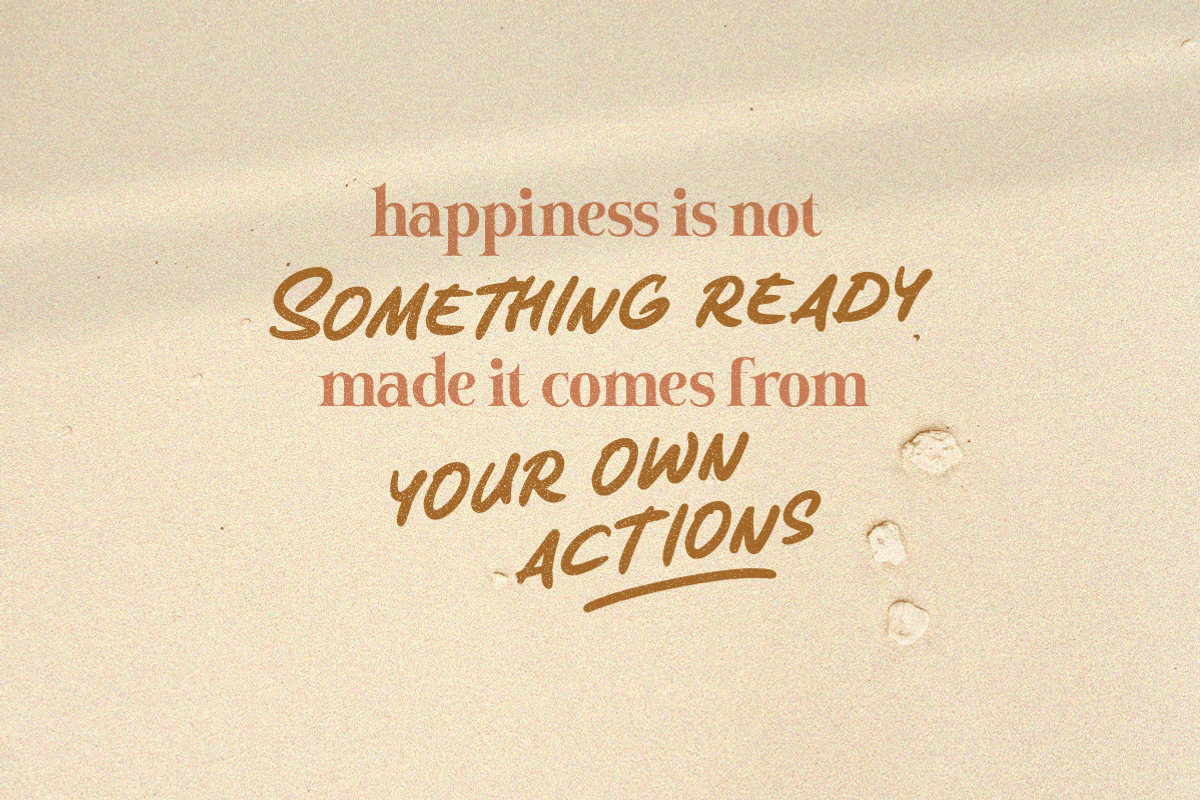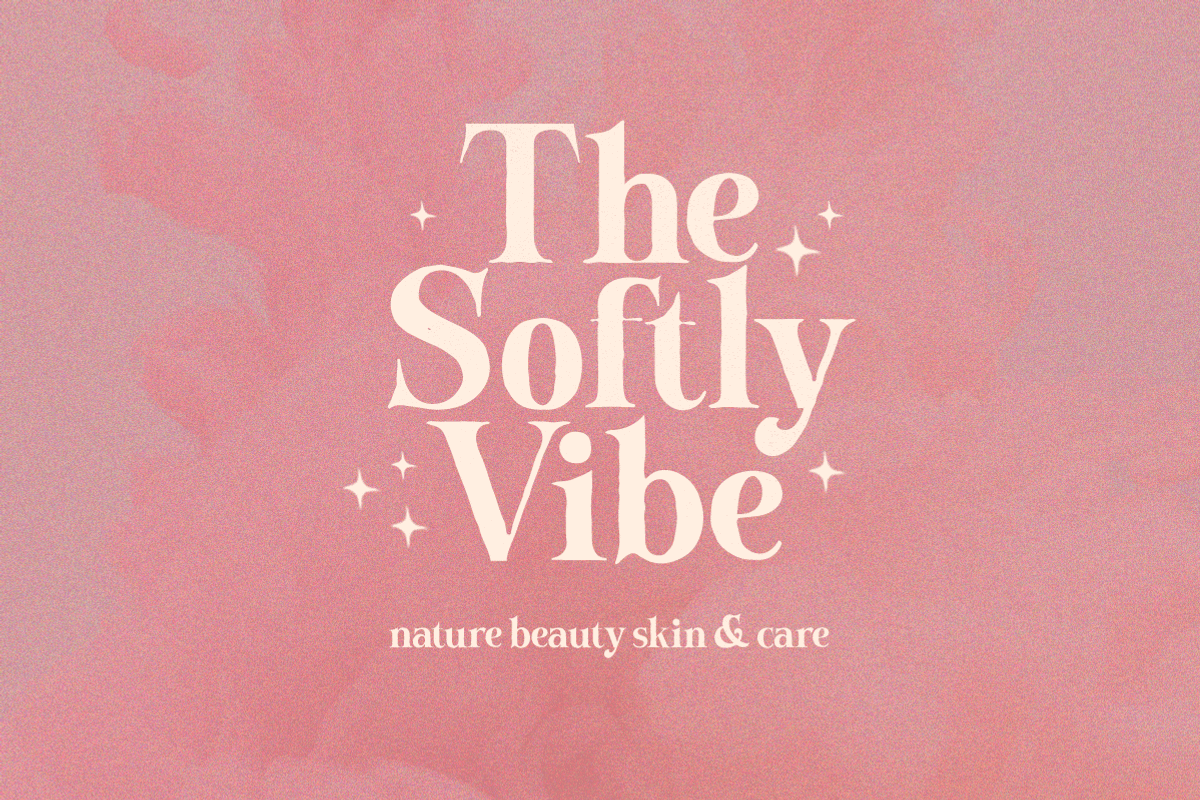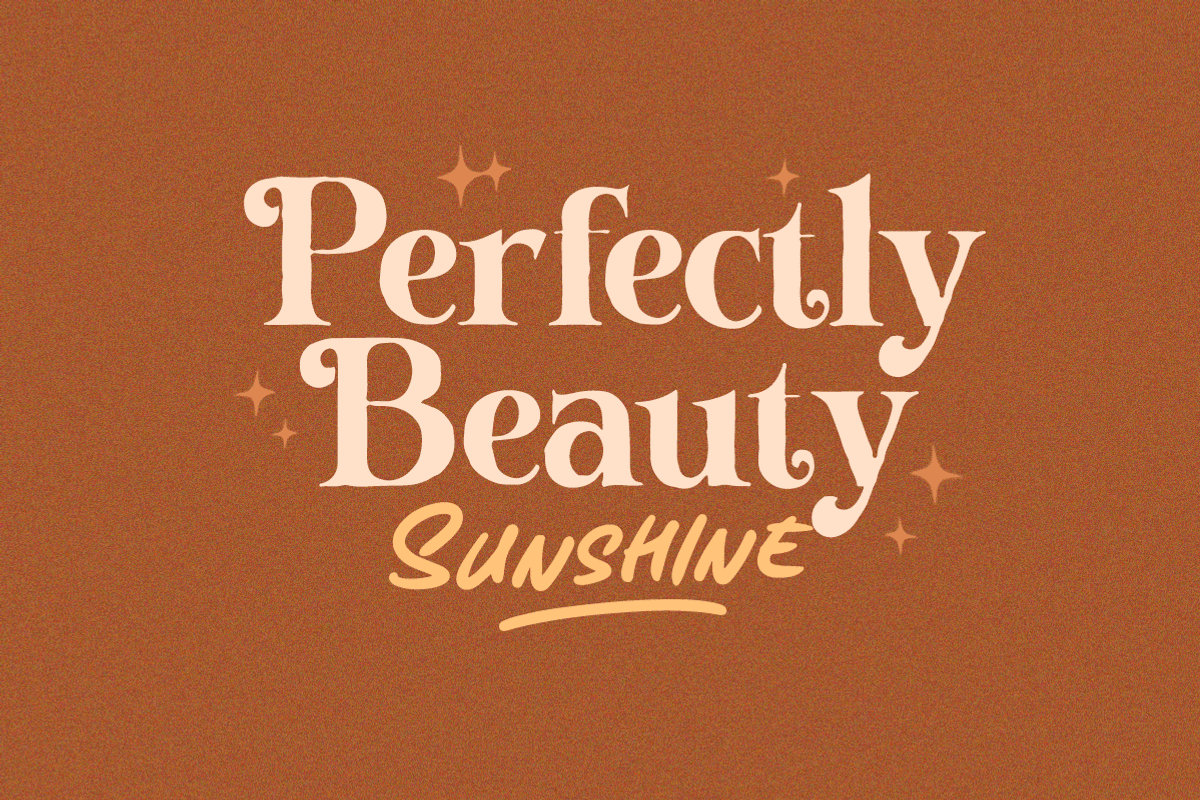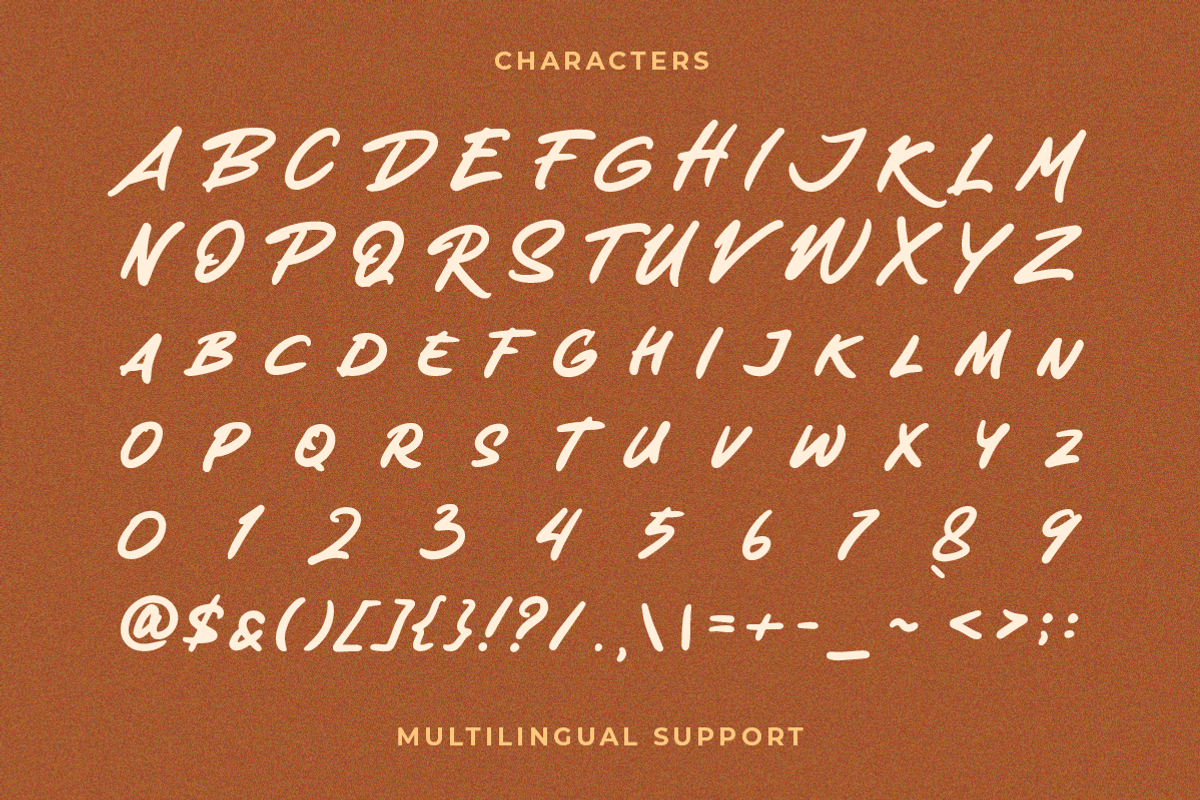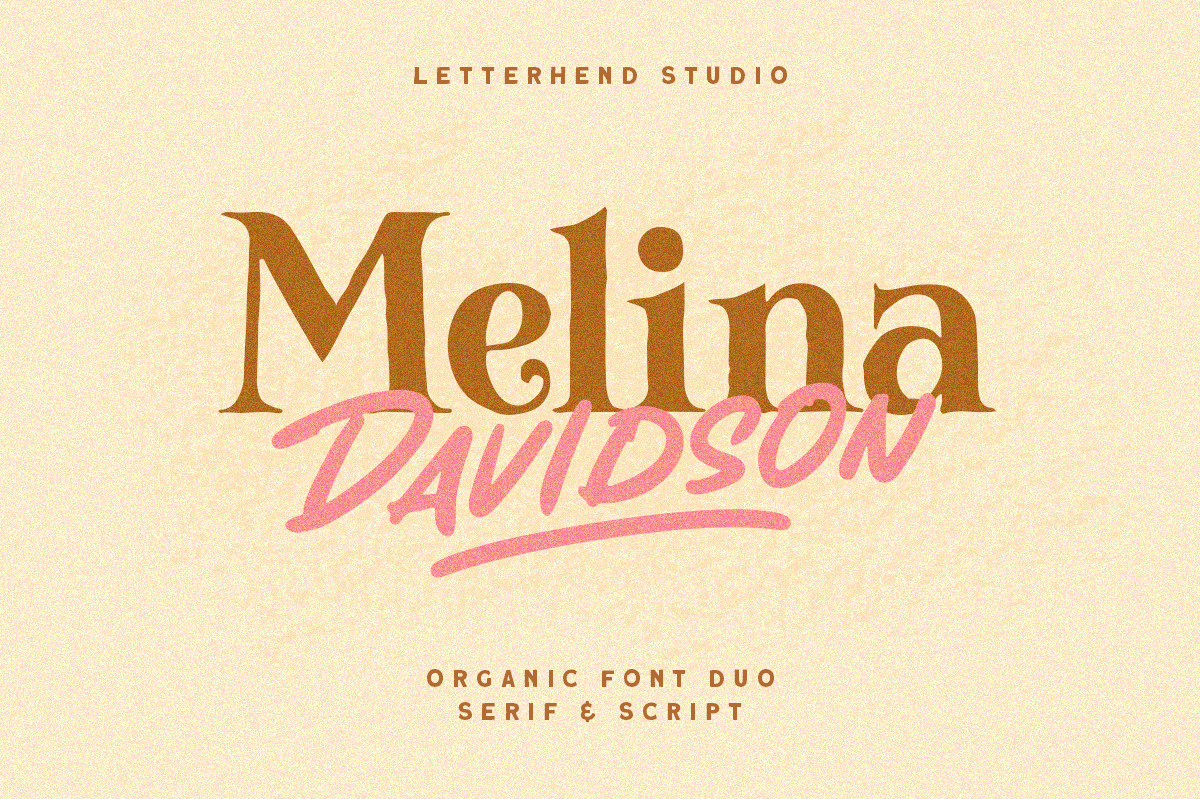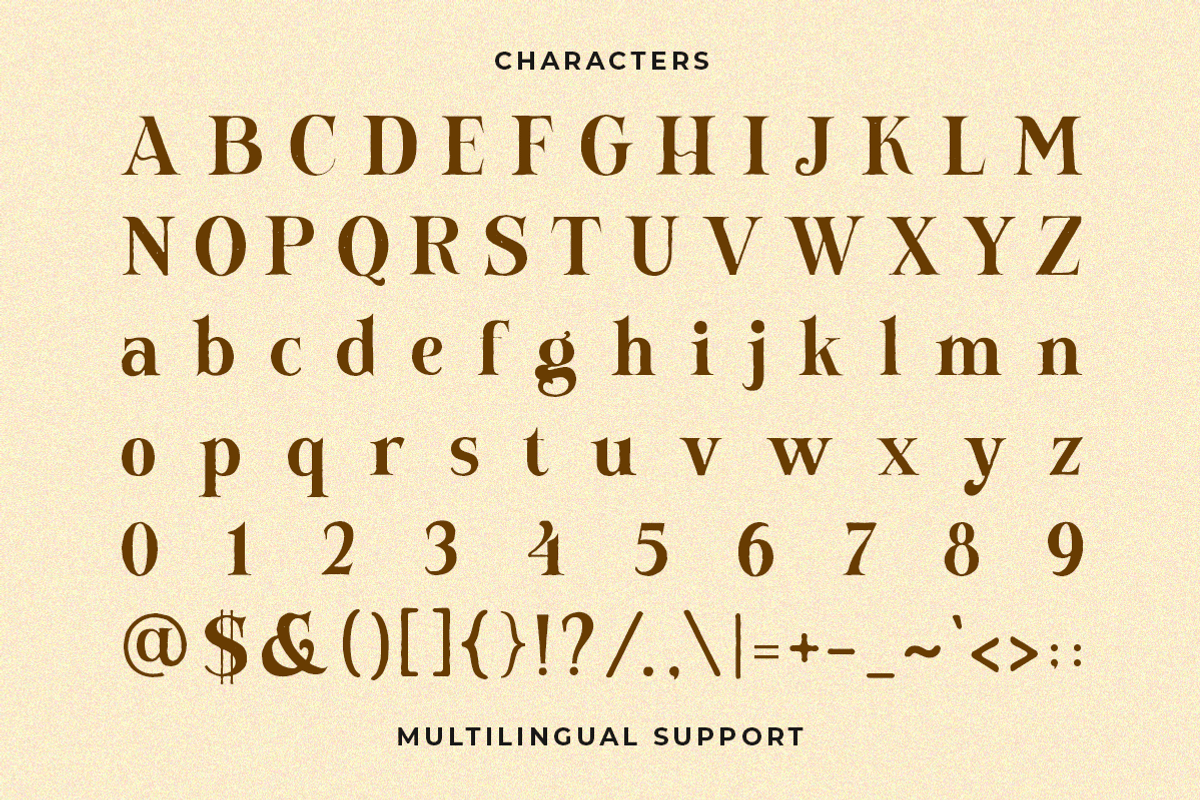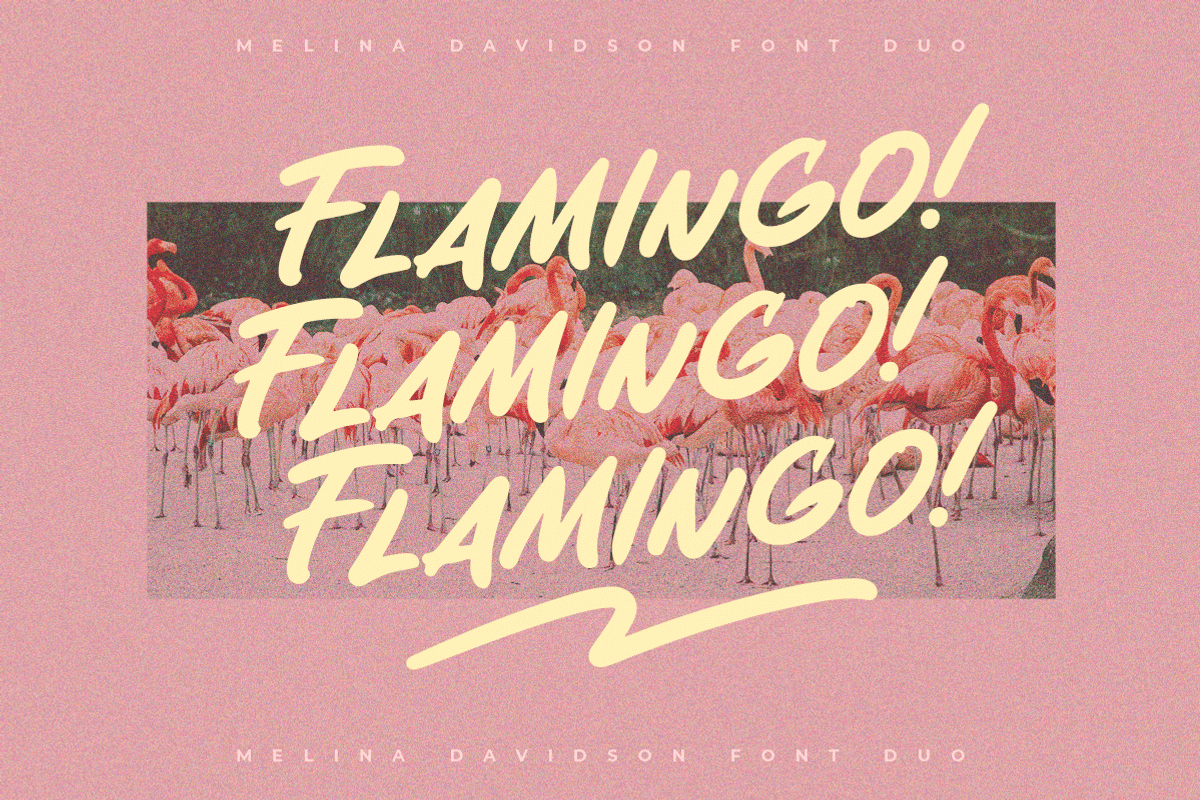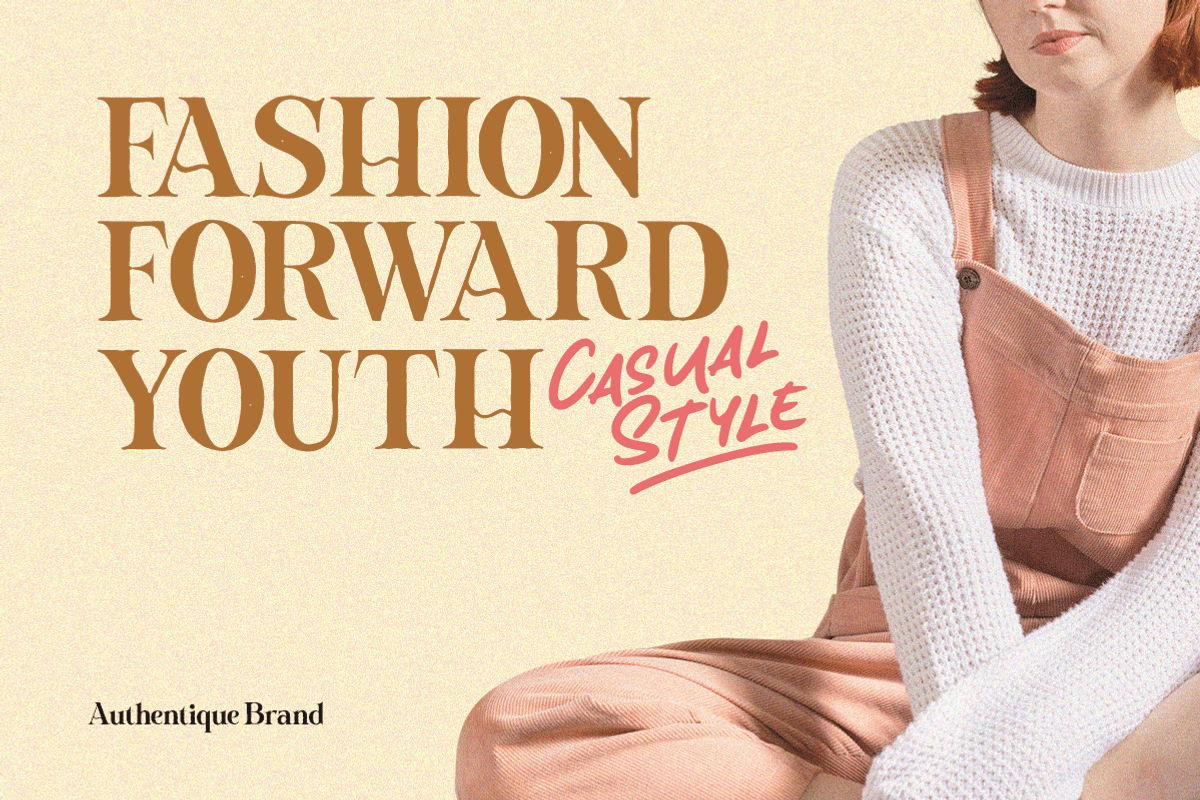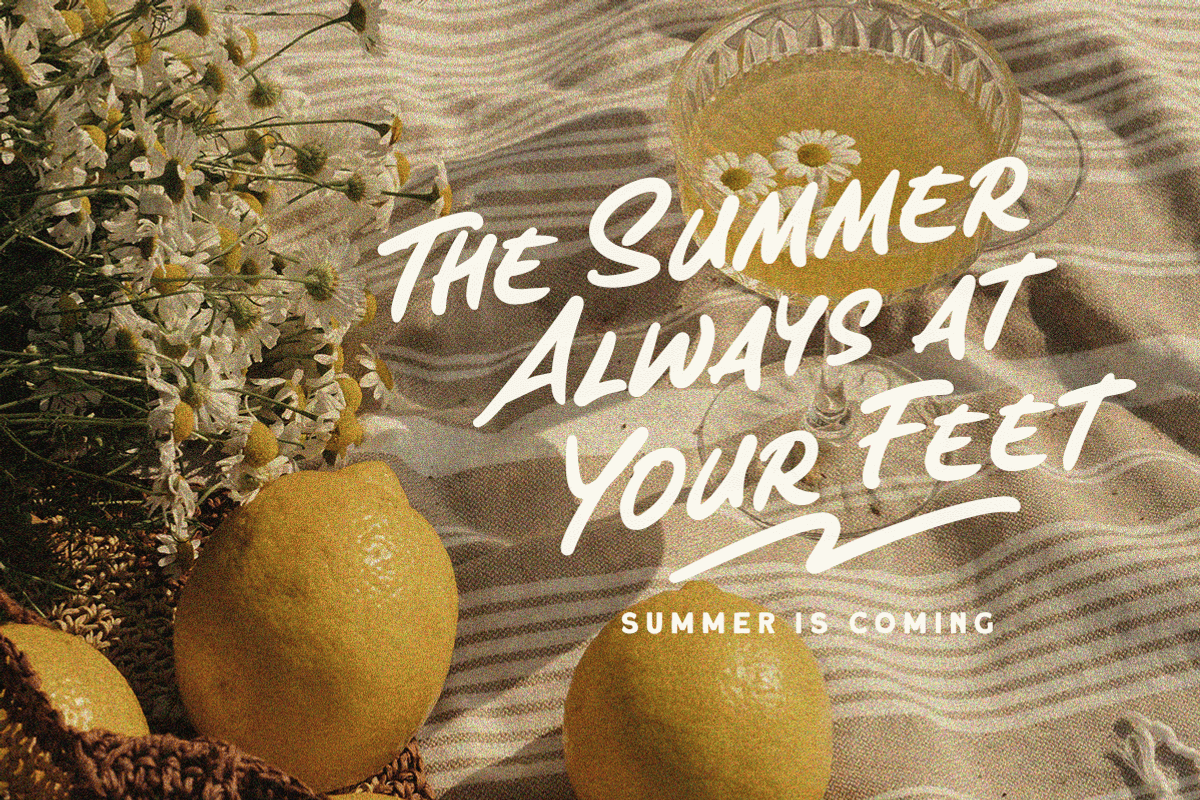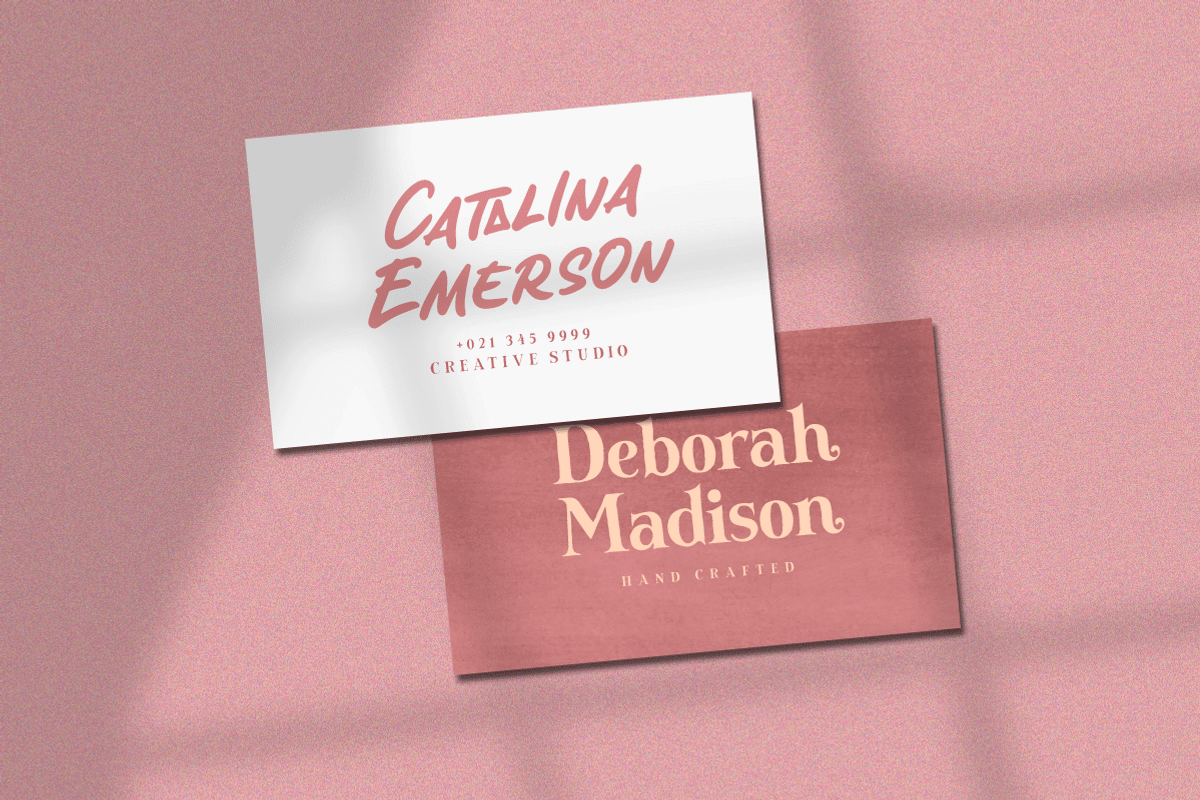
Melina Davidson - Organic Font Duo
Melina Davidson is a font duo package contain a stylish serif with organic script. This font duo is purposely made for headline, display or logotype, and signature which need a standout appearing. This font perfectly made to be applied especially in logo, and the other various formal forms such as invitations, labels, logos, magazines, books, greeting / wedding cards, packaging, fashion, make up, stationery, novels, labels or any type of advertising purpose.
- Serif & script